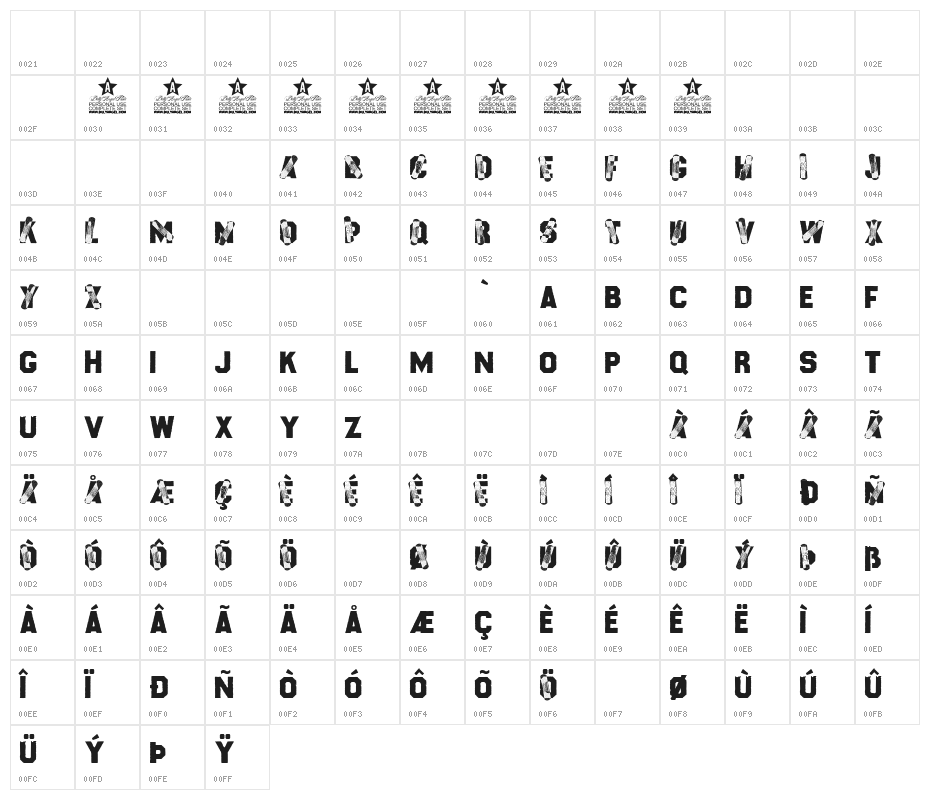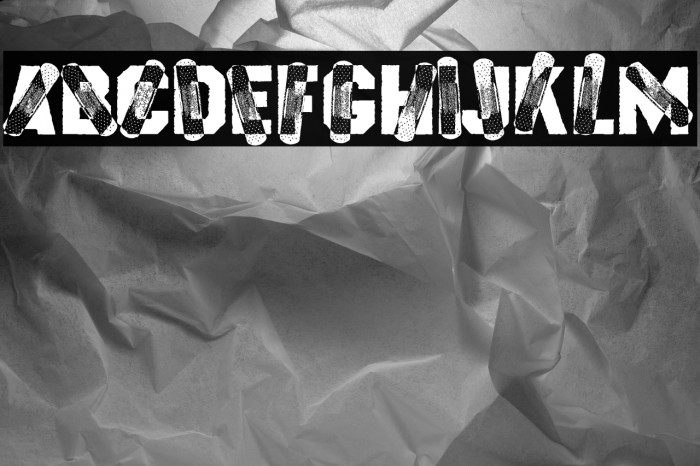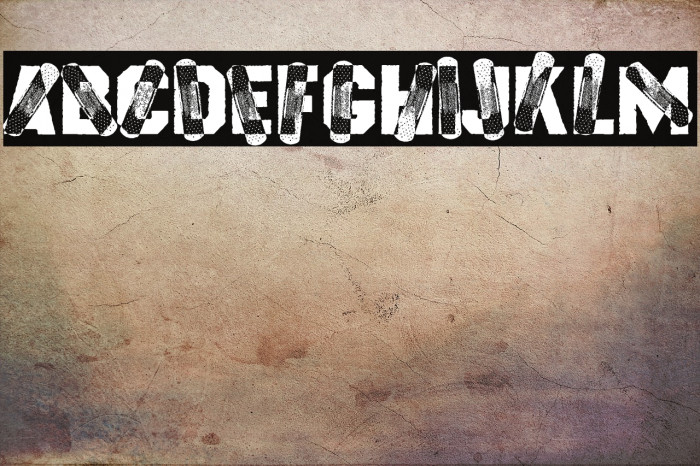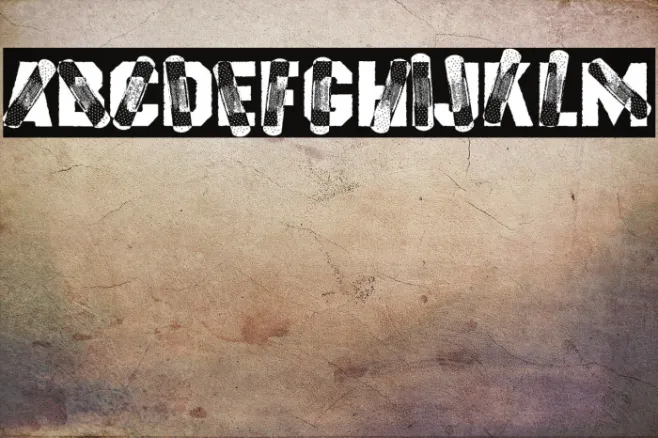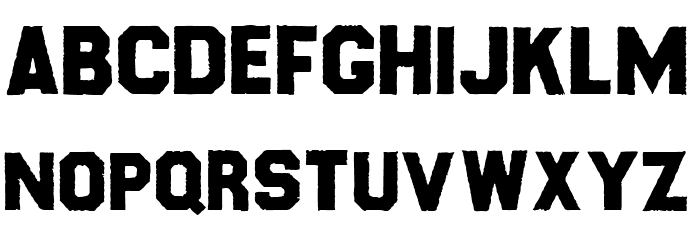
HEALTHYFIX Font
This font features a bold and rugged style with a distressed texture that gives it a unique, gritty appearance. The uppercase letters are designed with a blocky structure, providing a strong and impactful presence. The texture adds a vintage and worn-out feel, making it suitable for designs that require a touch of edginess or a retro vibe. The font's boldness ensures readability while the textured effect adds character and depth, making it stand out in various design contexts.
| Proposed Projects | Ideal for posters, album covers, branding for outdoor or adventure-themed products, and any project needing a bold, vintage aesthetic. |